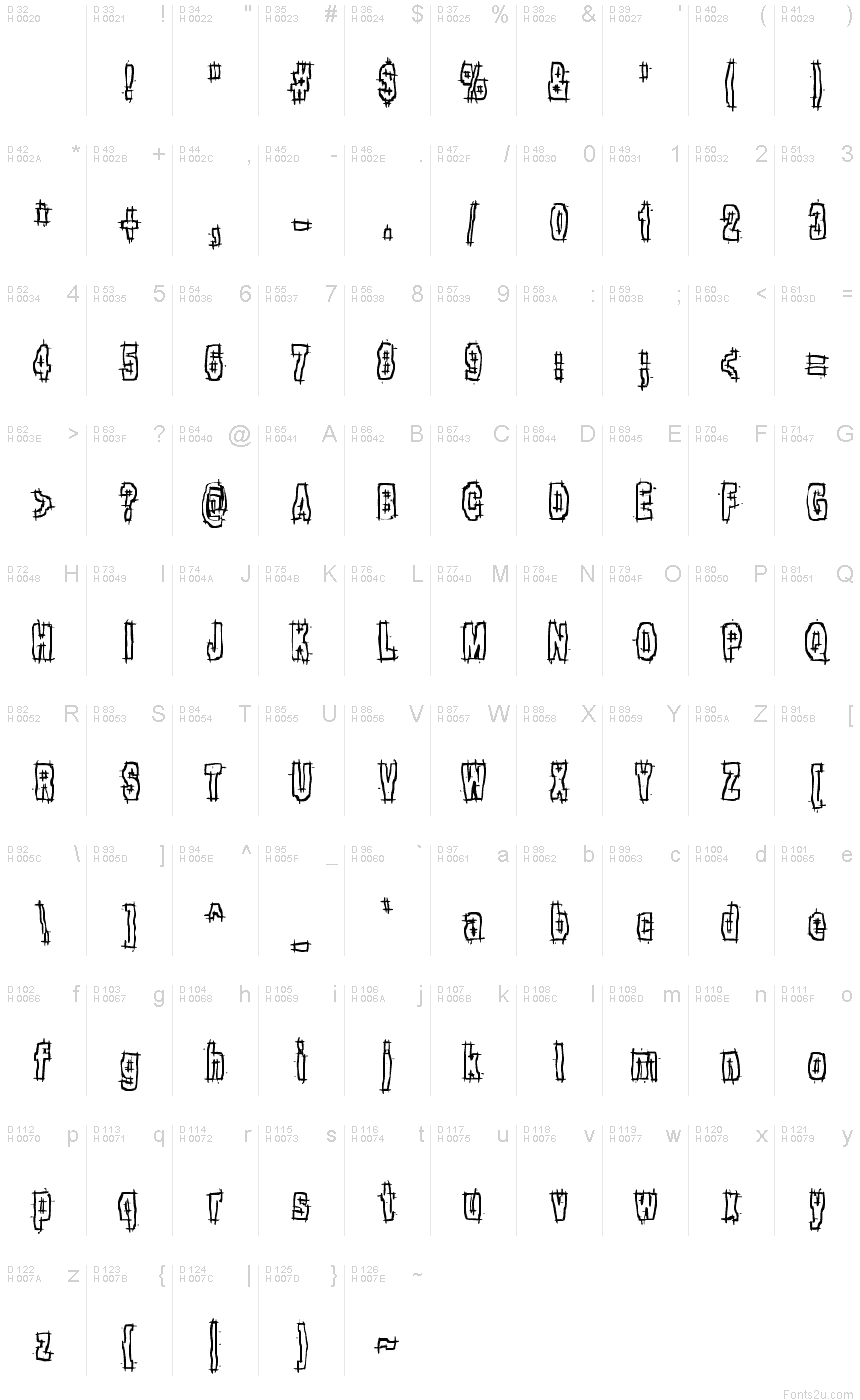
Hack & Slash BRK
Hack & Slash BRK font by Ænigma Fonts is a free horror comic display typeface. Its jagged outlines, crosshatched strokes, and barbed-wire energy feel like they were carved straight into a metal door, giving every word a raw, splattered tension. The letters tangle and overlap with a scratchy, hand-drawn chaos that still keeps each character readable, so you get pure slasher-movie attitude without losing the message.
Using Hack & Slash BRK, your titles instantly scream “danger”—a natural fit for horror posters, slasher game logos, haunted house flyers, edgy zines, YouTube thumbnails, and Halloween merch. This free font works best huge, letting the tangled lines and rough texture really show, and pairs well with a plain, condensed sans serif for taglines or details.